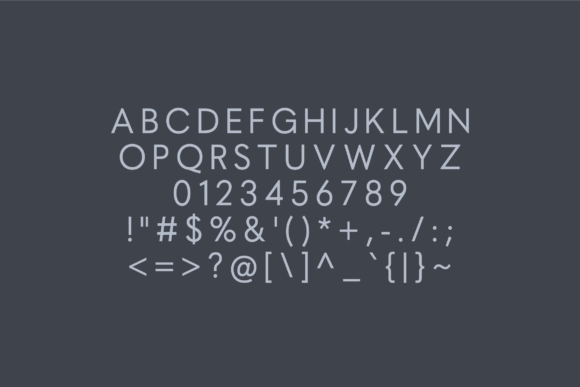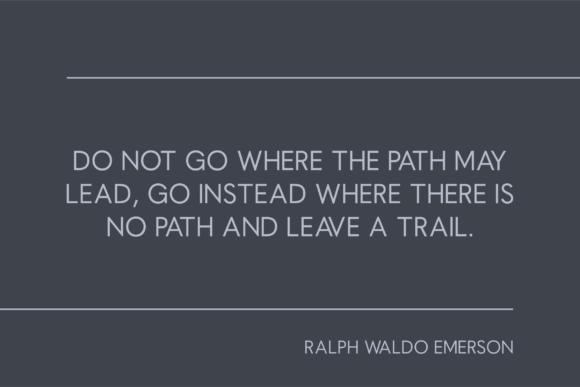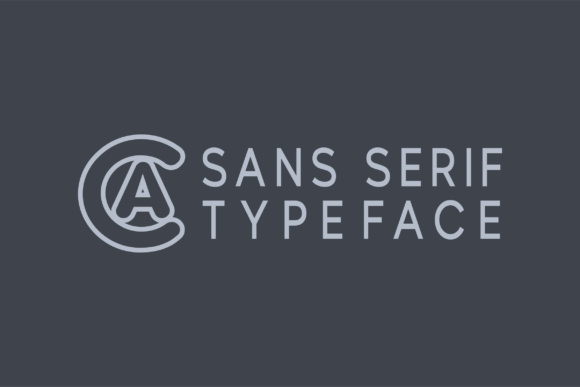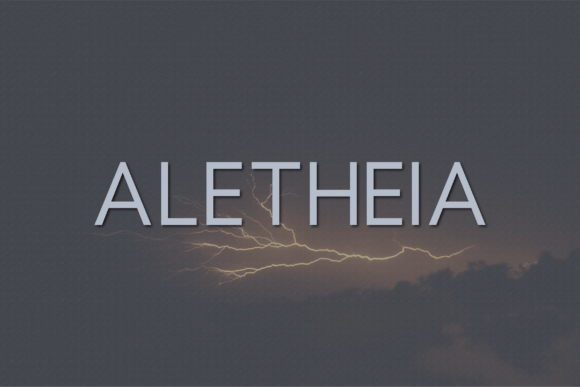
Discover the Elegance of Aletheia Font: A Designer’s New Best Friend
I’ll never forget the time I was working on a wedding invitation project, and my client asked for a font that exuded sophistication and elegance. I scoured the internet, tried out countless fonts, but nothing seemed quite right. That was until I stumbled upon Aletheia Font. ✨ It was love at first sight! The clean lines, the modern aesthetic, and the versatility – it was exactly what I needed. In this article, I’ll share my experience with Aletheia Font, its features, and how to make the most of it in your designs.
Aletheia Font: A Closer Look
Aletheia Font is a sans serif typeface that embodies contemporary elegance. With a meticulous attention to detail, it offers an array of upper characters, numerals from 0-9, and a variety of punctuation marks and symbols. Its versatility is its keynote, making it suitable for diverse design needs, from eye-catching logos to sophisticated wedding invites, meaningful quotes, and captivating advertisements.
Honest Review: What I Love and What I Don’t
The Good Stuff ✅
- ✨ **Clean and modern design**: Aletheia Font boasts a sleek and sophisticated look that’s perfect for contemporary designs.
- ✅ **Versatile**: It can be used for a wide range of projects, from print media to digital applications.
- 💡 **Easy to read**: The font is clear and legible, making it ideal for body text and headlines.
- 🎨 **Highly customizable**: Aletheia Font comes with OpenType features, glyphs, and stylistic alternates, giving you plenty of creative options.
- 🤔 **Some characters may require manual adjustment**: Depending on the design, you might need to tweak certain characters for optimal spacing and alignment.
The Story Behind Aletheia Font
Aletheia Font was designed with the intention of creating a modern, elegant, and versatile typeface. Inspired by the beauty of simplicity and the world of contemporary design, Aletheia Font aims to bring a touch of sophistication to any project. Whether you’re a designer, craftsperson, or creative hobbyist, Aletheia Font is here to help you elevate your designs.
Q: What is Aletheia Font?
A: Aletheia Font is a modern sans serif typeface designed for elegance and versatility.
Q: Is Aletheia Font suitable for body text?
A: Yes, Aletheia Font is clear and legible, making it suitable for body text and headlines.
Q: Can I use Aletheia Font in digital applications?
A: Absolutely! Aletheia Font is designed to work well in both print and digital media.